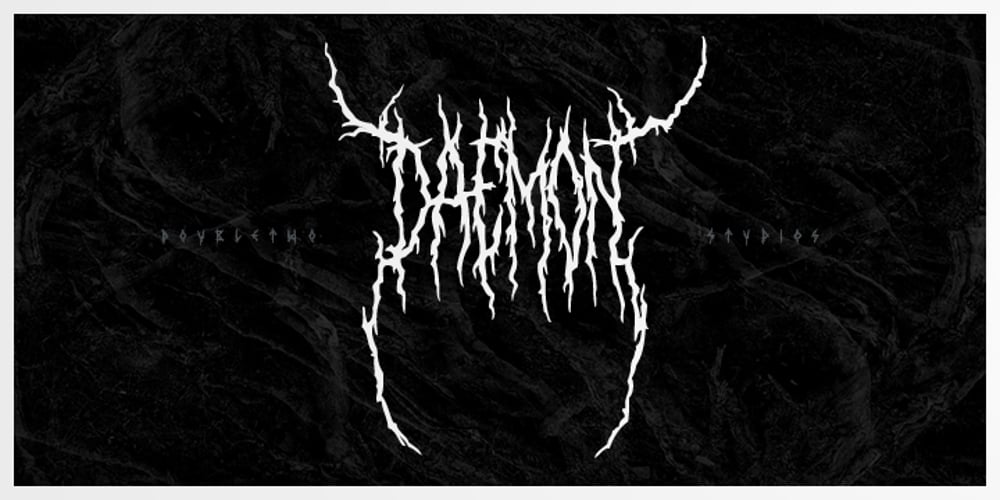
XXII Daemon Font Family was designed by Lecter Johnson and published by Doubletwo Studios. XXII Daemon contains 1 styles and family package options. The Daemon is the cheap alternative for you to easy create a logo for your band or whatever. It comes with a basic characterset and a little bunch of symbols and signs often used in the extreme music sector – classical stuff from Death- and Blackmetal like pentagrams and crosses, drips, roots and branches.